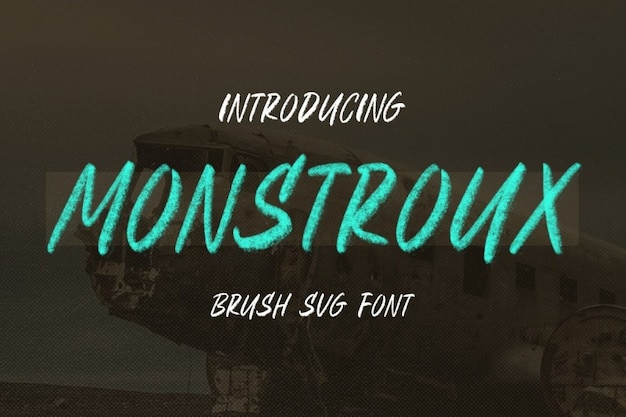
Monstroux Font
Finding a font that works for diverse purposes is something that can be difficult to find, but the Monstroux is surely one of them. It works on posters, t-shirts, and if you want to promote your business, it'll be the perfect choice too! In includes a solid version and SVG version, as well as numbers, punctuation and special characters. Design by Letterhend Studio, download it and start now!